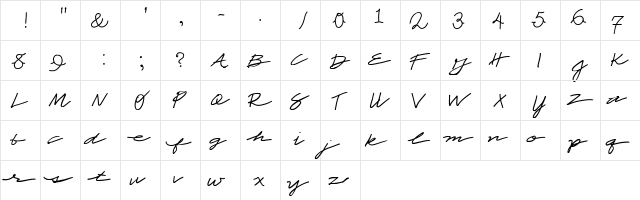
CBX-Scriptorium Regular
Design Context for CBX-Scriptorium Typeface
CBX-Scriptorium brings a calligraphic fluidity to the page — its connecting strokes and expressive curves give it an unmistakably human quality.
Font Pairing: Combine CBX-Scriptorium with a simple geometric sans for maximum contrast — the tension between flowing curves and clean structure is a classic typographic pairing.
Pro Tip: Use CBX-Scriptorium for short runs of text — names, titles, or taglines. Extended body copy in script faces tires the eye quickly.